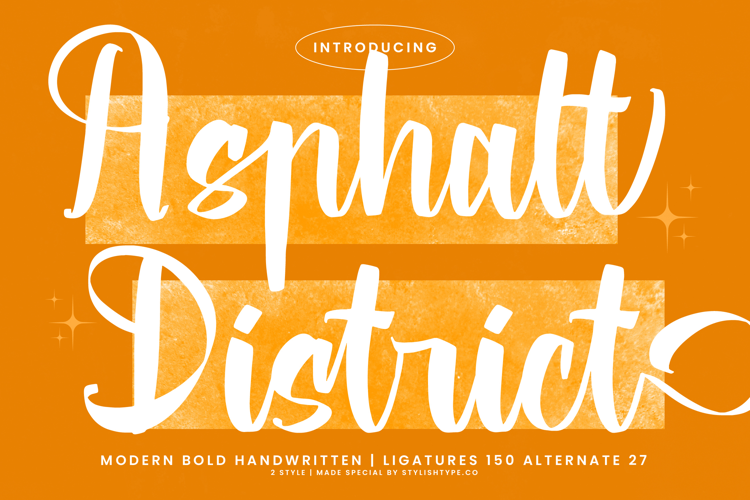
Asphalt District - Modern Bold Handwritten
Asphalt District - Modern Bold Handwritten, a typeface engineered for maximum impact and style. This signature script seamlessly marries the raw energy of authentic hand lettering with the refined elegance of a modern display font. Its thick, confident strokes and sweeping connections create a dynamic flow that instantly captivates the viewer, guaranteeing headline supremacy across all digital and print mediums. This is the ultimate tool for designers seeking a statement piece that is both bold and highly legible.